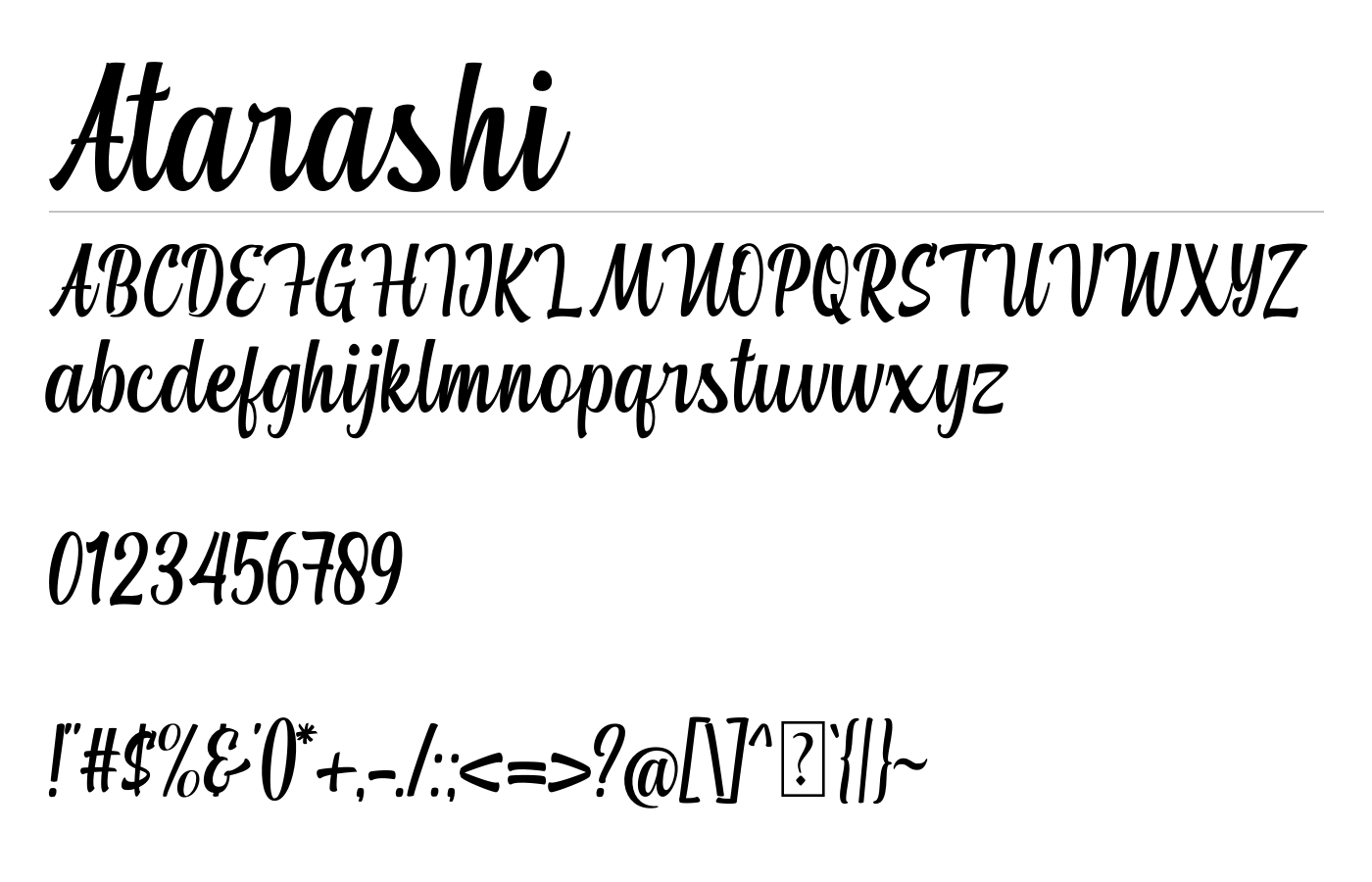
Atarashi is a stylish script font with a smooth, slightly condensed structure and medium contrast in its strokes. Its elegant, flowing letterforms feature subtle variations that combine classic calligraphic charm with a modern, approachable feel, making it ideal for branding, invitations, and creative headlines. This font adds a refined yet friendly personality to designs looking for a handwritten touch with sophistication.
Atarashi Font
About Atarashi Font